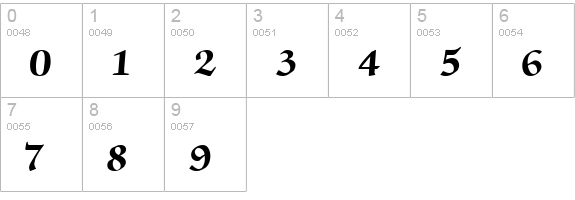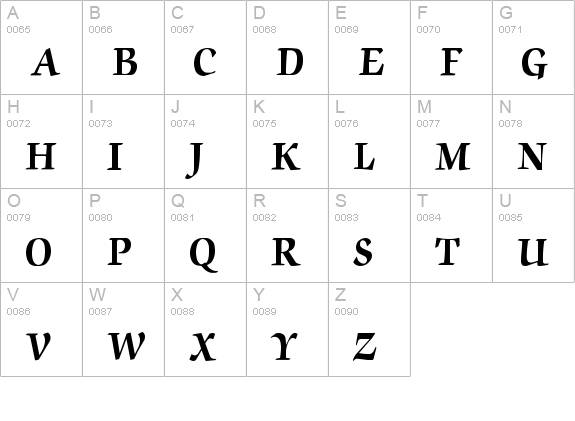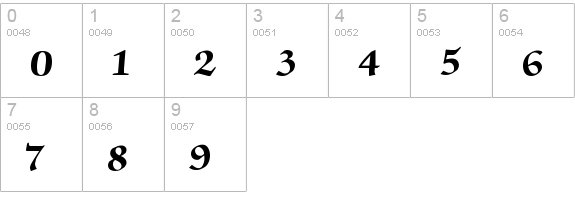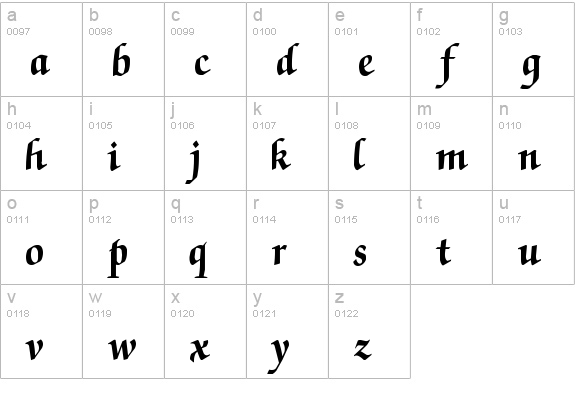
Chancery Bold Font Details
Chancery Bold is a strong, high-contrast variant in the Chancery typeface family \xE2\x80\x94 well suited to headlines, attention-grabbing titles, and strong calls-to-action.
Chancery Bold font is a stunning and elegant typeface that exudes sophistication and charm. Its beautifully crafted letterforms are perfect for adding a touch of luxury to any design project. The bold and distinctive strokes of this font make it stand out, while still maintaining a classic and timeless appeal. What makes Chancery Bold font even more appealing is that it is available for free download at FontsMarket.com. This means that you can easily access this gorgeous typeface and use it in your personal and commercial projects without any cost. Whether you're designing invitations, logos, or branding materials, Chancery Bold font is sure to elevate your work to the next level. Download it today and add a touch of elegance to your designs with this exquisite typeface.